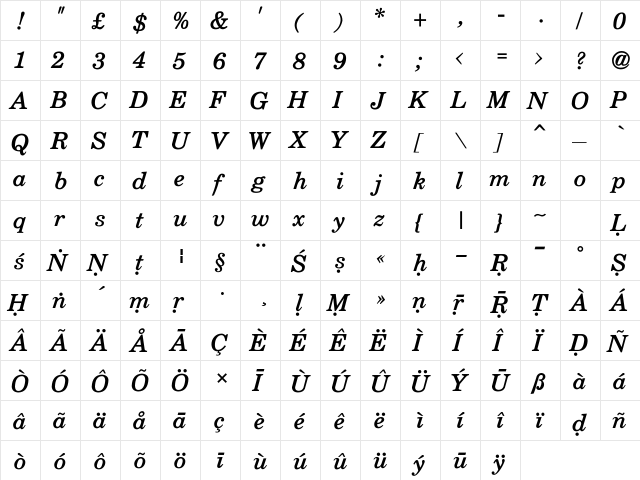
Skt Centurion Bold Italic
| Designer | Diacritical marks added by Bhikkhu Pesala. |
Design Context for Skt Centurion Typeface
Skt Centurion offers clean, dependable letterforms without strong stylistic allegiance, making it a practical choice for designers who need flexibility. The slanted form adds forward momentum and visual energy. Its bold stroke weight gives it real presence on the page.
Pro Tip: Use Skt Centurion for emphasis, pull quotes, and subheadings where its slanted energy can add rhythm to the layout.